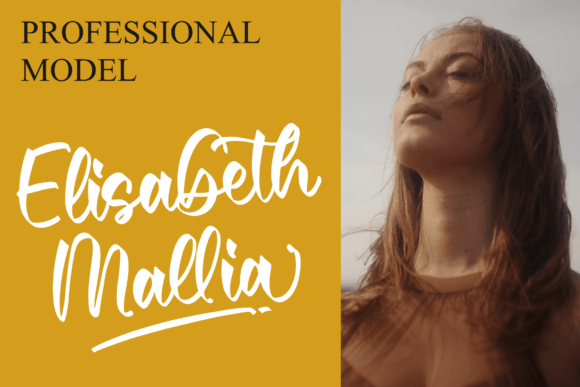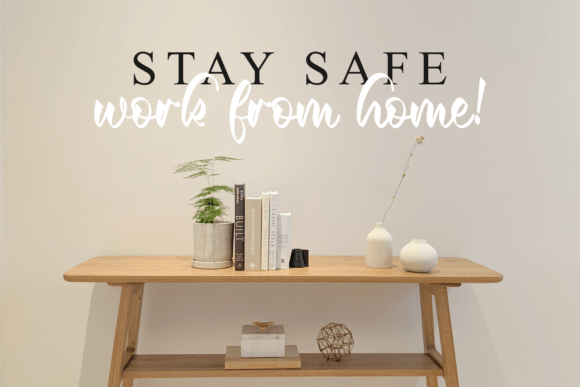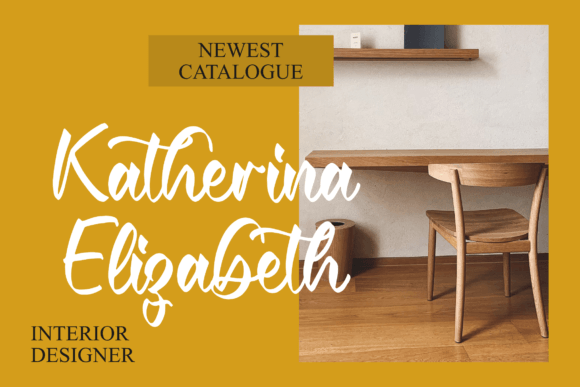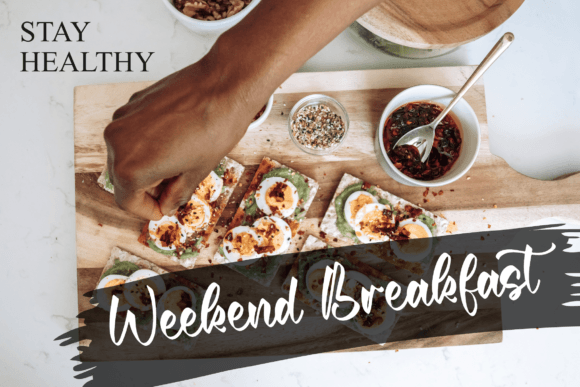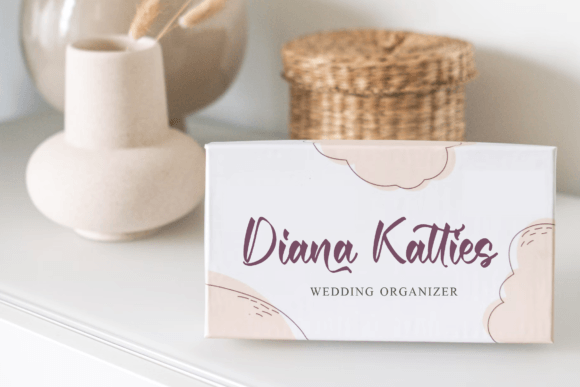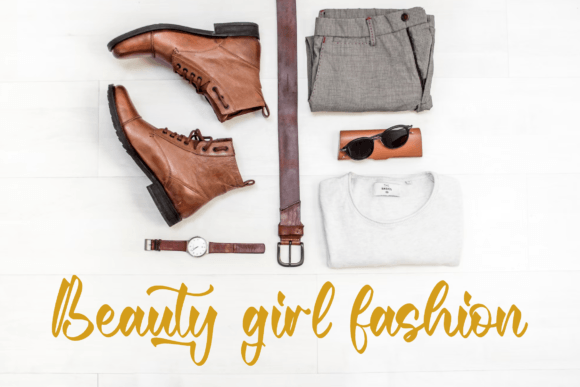
Introduction to Senittahna Font
Imagine yourself rummaging through a treasure trove of beautiful fonts, searching for the perfect script to elevate your latest creative project. The thrill of discovering that one font that captures the essence of your design is exhilarating, and it’s a moment that every designer cherishes. If you’re on the hunt for a stunning script font that can add a touch of elegance to your work, look no further than the Senittahna Font.
As a valuable resource for designers, the Senittahna Font is a high-quality design asset that can be used for a wide range of creative projects, from logos and branding to homeware designs and product packaging. Its versatility and beautiful script style make it an ideal choice for designers who want to add a personal touch to their work. Plus, with its transparent background, you can easily integrate it into your designs without any hassle.
Key Features of Senittahna Font
- The Senittahna Font is a high-quality design resource ideal for creative projects requiring unique typography.
- Its unique, hand-drawn style sets it apart from other fonts, making it a standout choice for designers seeking to add a touch of personality to their work.
Honest Review: Senittahna Font
As a designer, I’m always on the lookout for high-quality fonts that can elevate my creative projects. I recently stumbled upon the Senittahna Font, and I must say, it’s a gem. With a free download option, this font has become one of my go-to design resources.
Here are some things that work well about the Senittahna Font: ✨
- Its unique, handwritten style adds a personal touch to any project.
- The font is highly versatile and can be used for a wide range of creative projects, from logos to typography-based art.
- The transparent background makes it easy to layer and combine with other design elements.
However, there are some limitations to keep in mind: ⚠️
- The font may not be suitable for body text, as it can be quite busy and overwhelming.
Overall, I’m impressed with the Senittahna Font. Its unique style and versatility make it a valuable addition to any designer’s toolkit. If you’re looking for a high-quality, creative font for your next project, I highly recommend giving it a try.
Alternatives to Senittahna Font
The Great Vibes Font is a high-quality, elegant script font perfect for creative projects that require a touch of sophistication. It’s available for free download and can be used for various design resources, including logos, invitations, and wedding cards. Great Vibes Font offers a transparent background, making it ideal for overlaying text on images.
Compared to Senittahna Font, Great Vibes Font has a more refined and polished look, making it suitable for formal events and high-end branding. However, Senittahna Font has a more playful and whimsical feel, making it ideal for casual and creative projects.